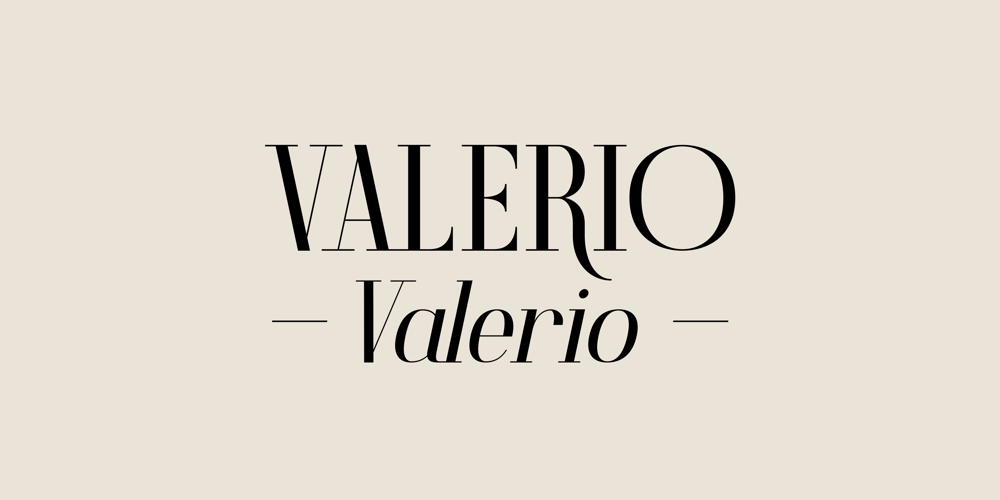
Valerio Font Family was designed by Stefano Giliberti and published by Stefano Giliberti. Valerio contains 2 styles and family package options. Valerio is the font family to use if you wish to convey your ideas with elegance and a pinch of eccentricity without being out of touch with modernity. Valerio supports 117 languages, features a total of 504 glyphs and includes an italicized version.